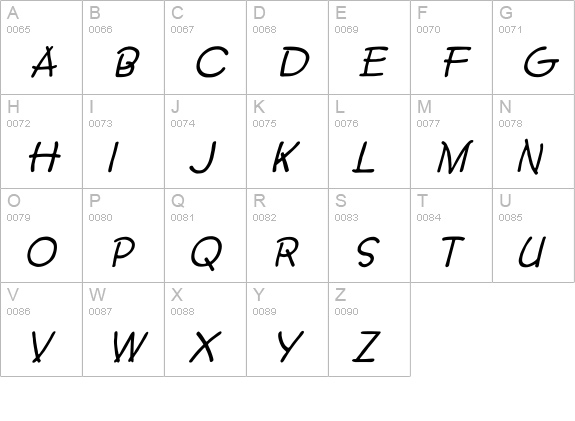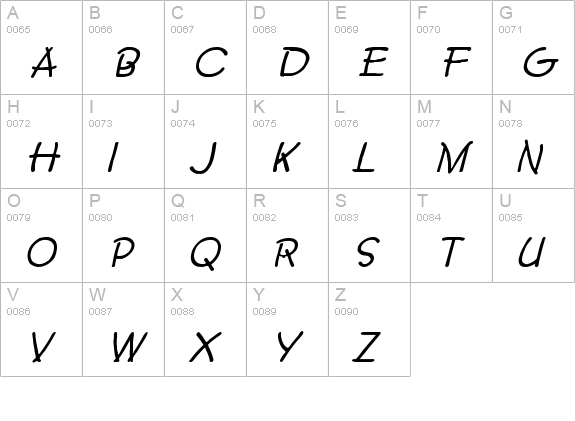
Lumparsky Italic Font Details
Lumparsky Italic is a distinctive, italic variant in the Lumparsky typeface family \xE2\x80\x94 well suited to design and typography projects.
The Lumparsky Italic font exudes elegance and sophistication with its sleek and modern design. Its stylish italicized characters add a touch of flair to any project, making it perfect for a wide range of applications, from formal invitations to creative branding. The flowing curves and unique letterforms of Lumparsky Italic will captivate your audience and elevate your design to new heights. And the best part? Lumparsky Italic is available for free download at FontsMarket.com. This means you can add this stunning font to your collection without any cost, allowing you to enhance your projects with a high-quality typeface without breaking the bank. Don't miss out on this opportunity to elevate your design work with the exquisite Lumparsky Italic font - download it for free today at FontsMarket.com!